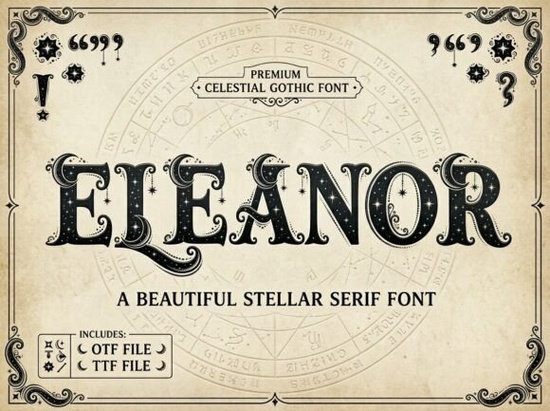
If you're working on a design that calls for mystery, elegance, and a touch of the cosmos, Eleanor Font might be exactly what you need. This celestial gothic typeface blends classic serif structure with delicate cosmic details think crescent moons tucked into letterforms, subtle stardust textures, and graceful swashes that evoke midnight skies. It’s especially well-suited for mystical branding, tarot decks, indie jewelry labels, or any project where “witchy-chic” meets refined typography.
What makes Eleanor Font stand out from other decorative fonts?
Eleanor isn’t just another ornamental display font. Its strength lies in how it balances tradition and fantasy. The base letterforms follow timeless serif proportions, giving your text instant readability even at larger sizes. But then it surprises you: tiny stars dangle from descenders, crescents nestle within curves, and a soft shimmer runs through uppercase glyphs. These aren’t overwhelming flourishes they’re intentional accents that enhance mood without sacrificing clarity.
Compared to something like Junaid, which leans into calligraphic fluidity, Eleanor holds its structure firmly while still feeling dreamlike. And unlike retro-inspired choices such as Back to Retro, it doesn’t reference a specific decade it creates its own timeless aesthetic rooted in astrology and night-sky symbolism.
Who should use Eleanor Font?
This font shines in niche creative spaces where atmosphere matters as much as message:
- Tarot and oracle deck creators use it for card titles or guidebook headers to reinforce mystical themes.
- Small jewelry brands especially those selling moon-phase pendants, zodiac charms, or crystal-inspired pieces.
- Print-on-demand sellers designing mugs, posters, or apparel with celestial or witchy quotes.
- Indie publishers producing poetry chapbooks, zines, or editorial spreads with an ethereal tone.
- Crafters making handmade greeting cards for solstices, full moons, or spiritual milestones.
It’s less ideal for body text or minimalist designs but that’s by design. Eleanor is a display font meant to command attention in headlines, logos, or short phrases.
How does it pair with other fonts?
Because Eleanor carries so much visual weight and detail, pairing it with clean, neutral typefaces works best. A simple sans-serif like Helvetica Neue or even a basic system font (think Arial or Inter) lets Eleanor breathe. If you prefer serif companions, choose one with minimal detailing nothing too ornate.
You might also consider contrasting it with a more grounded display font like Kinder Classroom for playful-but-mystical projects (e.g., kids’ moon journals), though this requires careful balance. For high-fashion occult vibes, try combining it with Lumina Inline, which shares a luminous quality but expresses it through geometric lines rather than organic curves.
Is Eleanor Font practical for commercial use?
One note: because of its intricate details, test how it renders at smaller sizes or on lower-resolution prints. The stardust texture and fine swashes may blur if scaled down too far. It performs best at 24pt and above for print, and even larger for merchandise like tote bags or posters.
Where does Eleanor fit in the broader world of display fonts?
Display fonts like Sports Baseball serve energetic, bold purposes think team jerseys or snack packaging. Eleanor operates in a completely different emotional register: quiet, introspective, and enchanted. It’s part of a growing trend where designers blend spirituality with sophisticated typography, moving beyond clichéd “witchy” fonts toward something more nuanced and artful.
That said, it’s not trying to be everything to everyone. Its appeal is specific and that’s its strength. If your audience connects with lunar cycles, astrology, or gothic romanticism, Eleanor speaks their language visually.
Before you commit, ask yourself: does my project benefit from subtle cosmic symbolism? If yes, this font adds narrative depth without needing extra graphics.
Quick checklist before using Eleanor Font
- ✅ Confirm your project uses short text (logos, headlines, quotes) not paragraphs.
- ✅ Test legibility at your intended size, especially for print or embroidery.
- ✅ Pair it with a simple, clean secondary font to avoid visual clutter.
- ✅ Consider layering it with starry backgrounds or metallic foil effects for extra dimension.
If you’re drawn to fonts that tell a story beyond letters, Eleanor offers a beautifully crafted voice one that whispers of constellations, candlelight, and ancient symbols reimagined for modern makers.